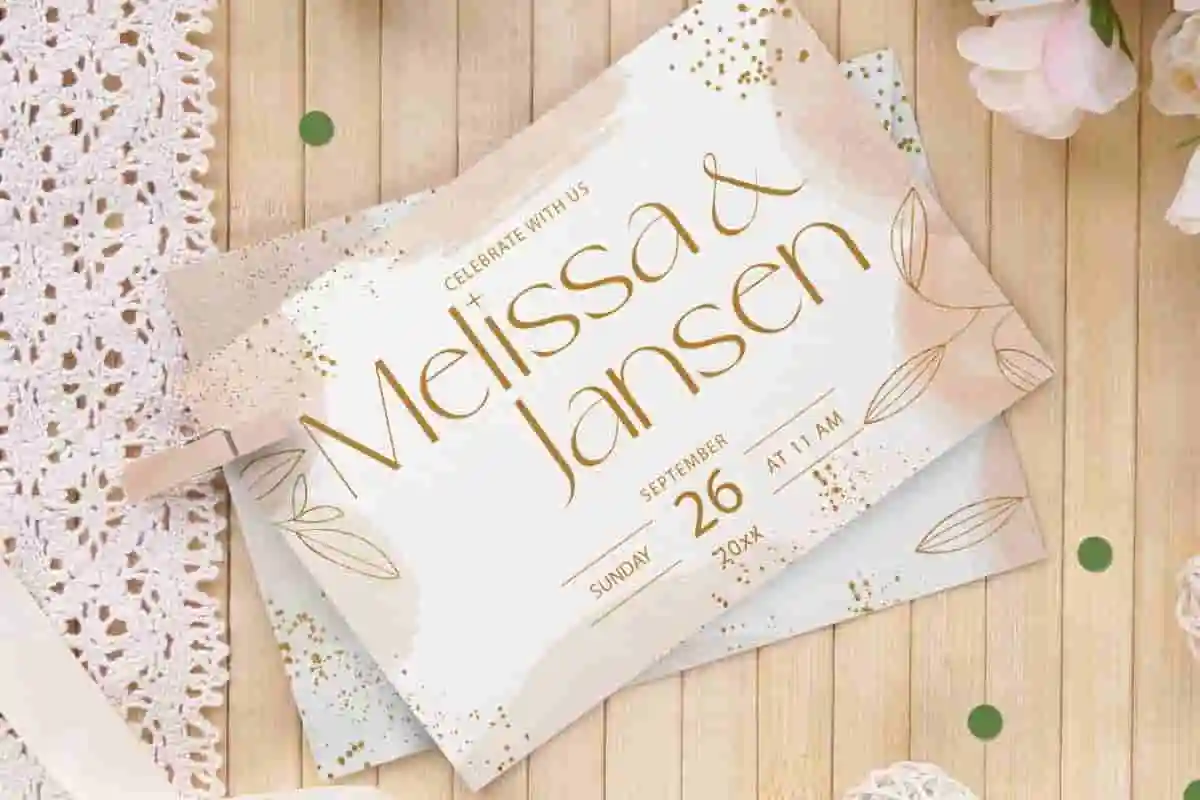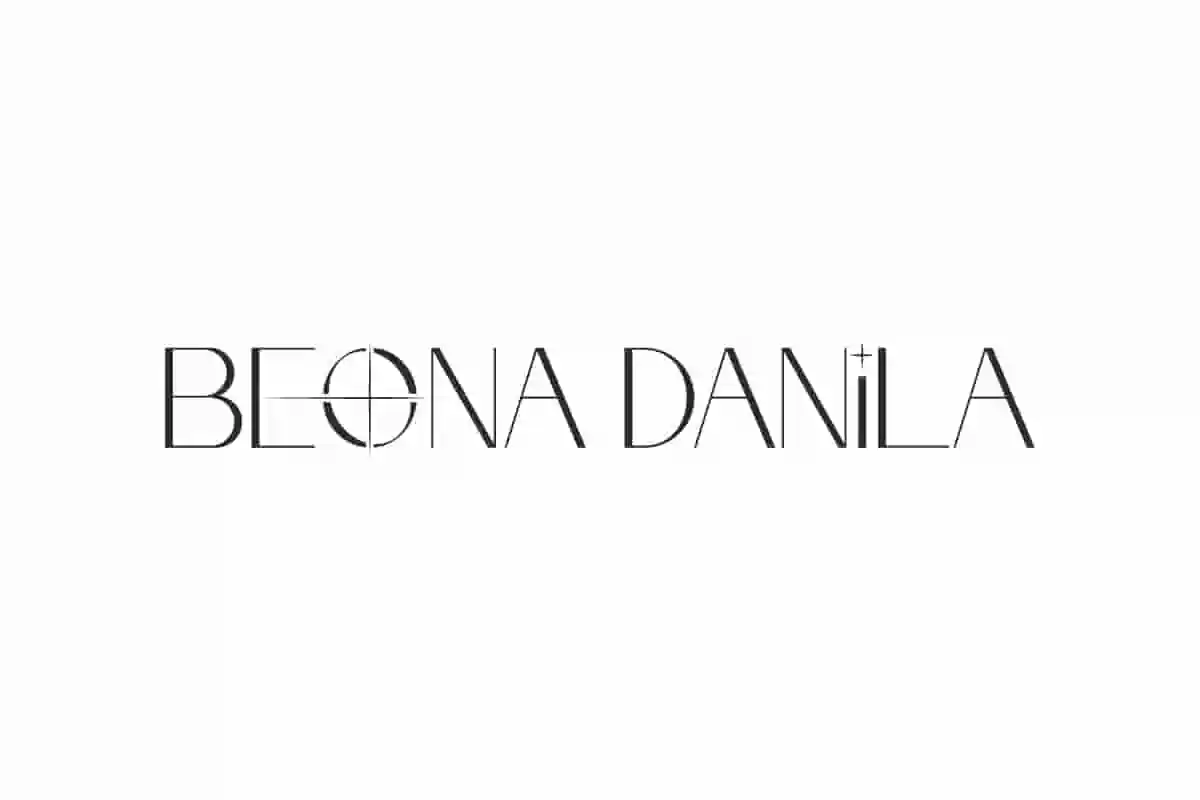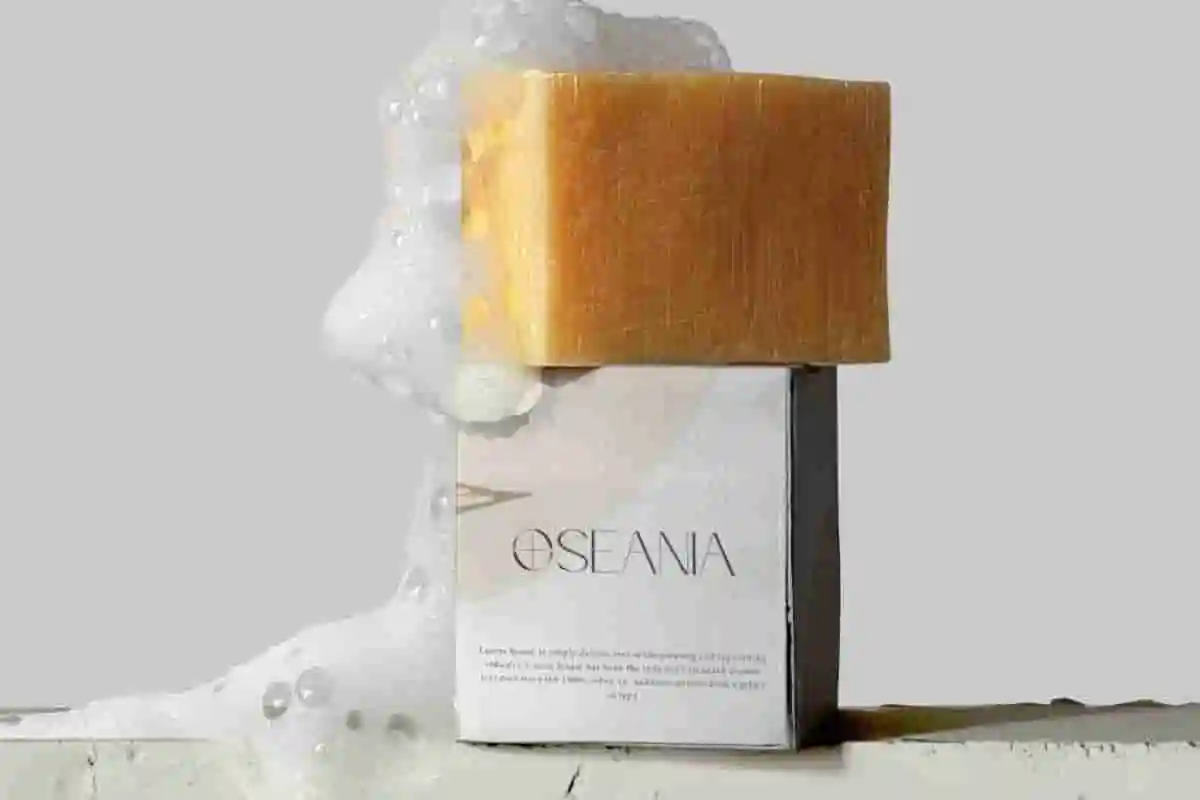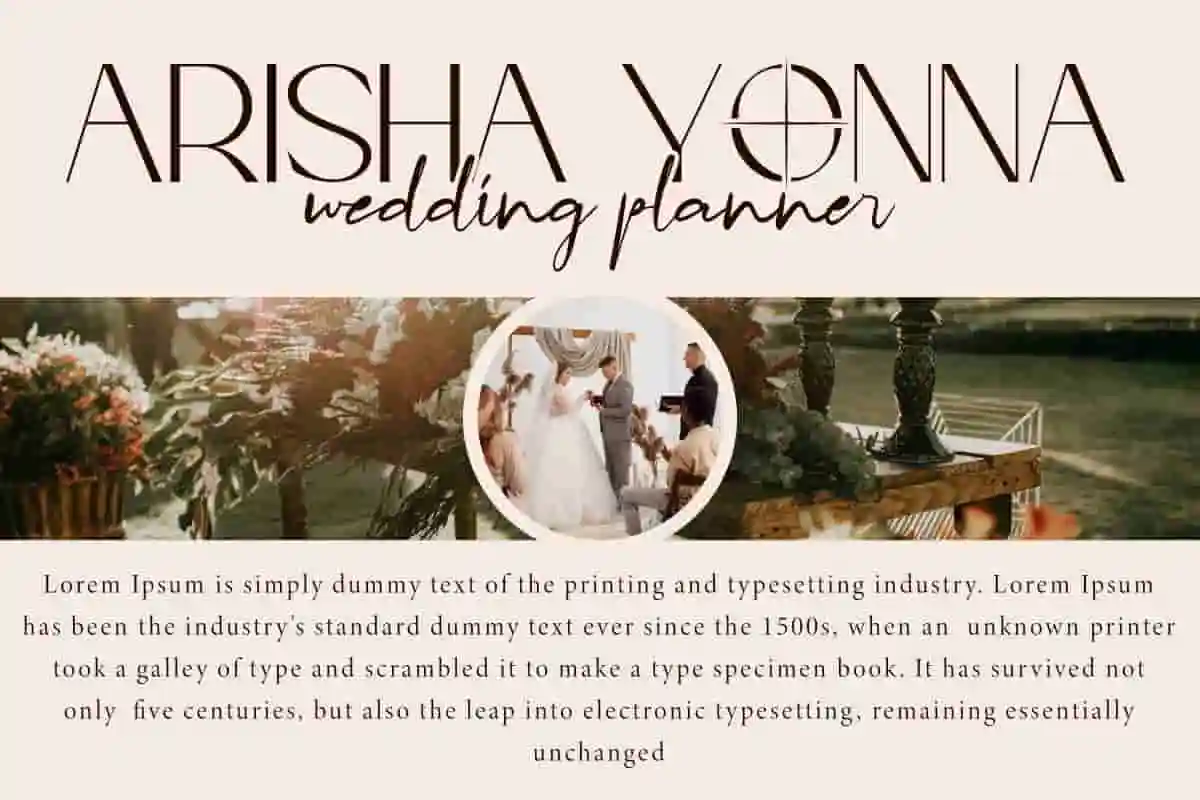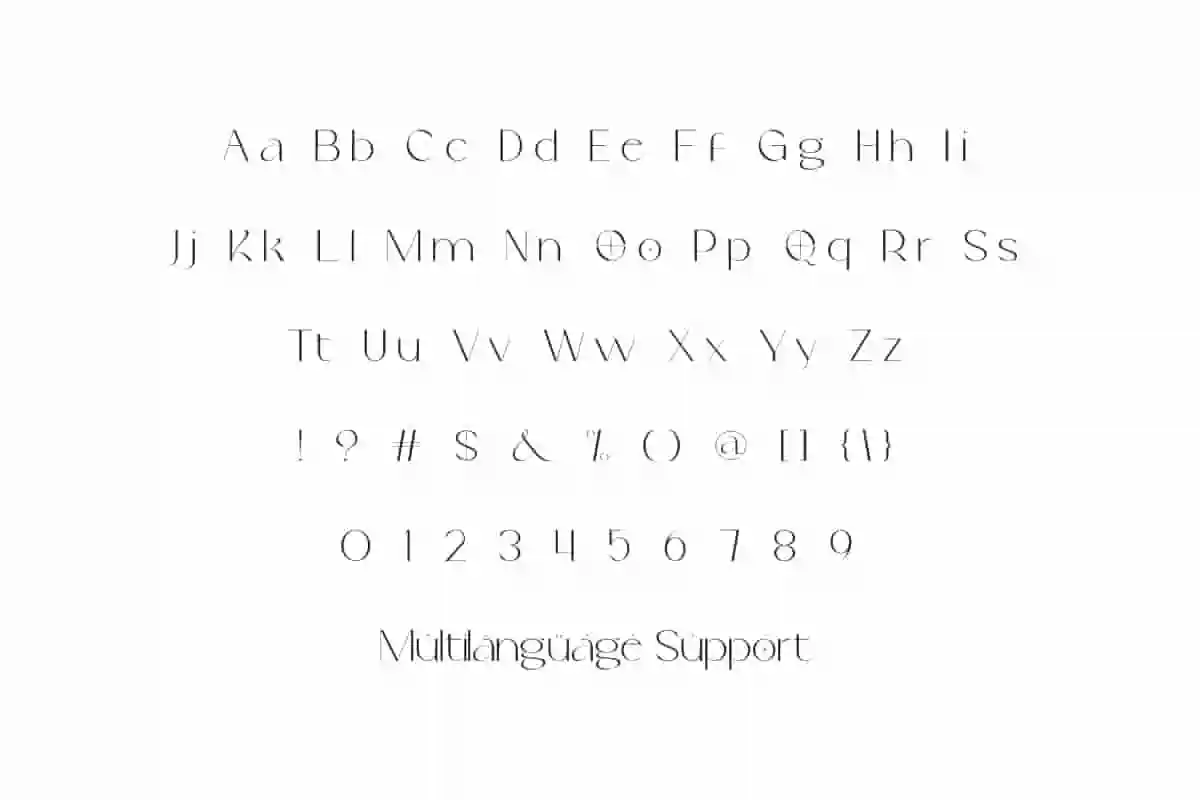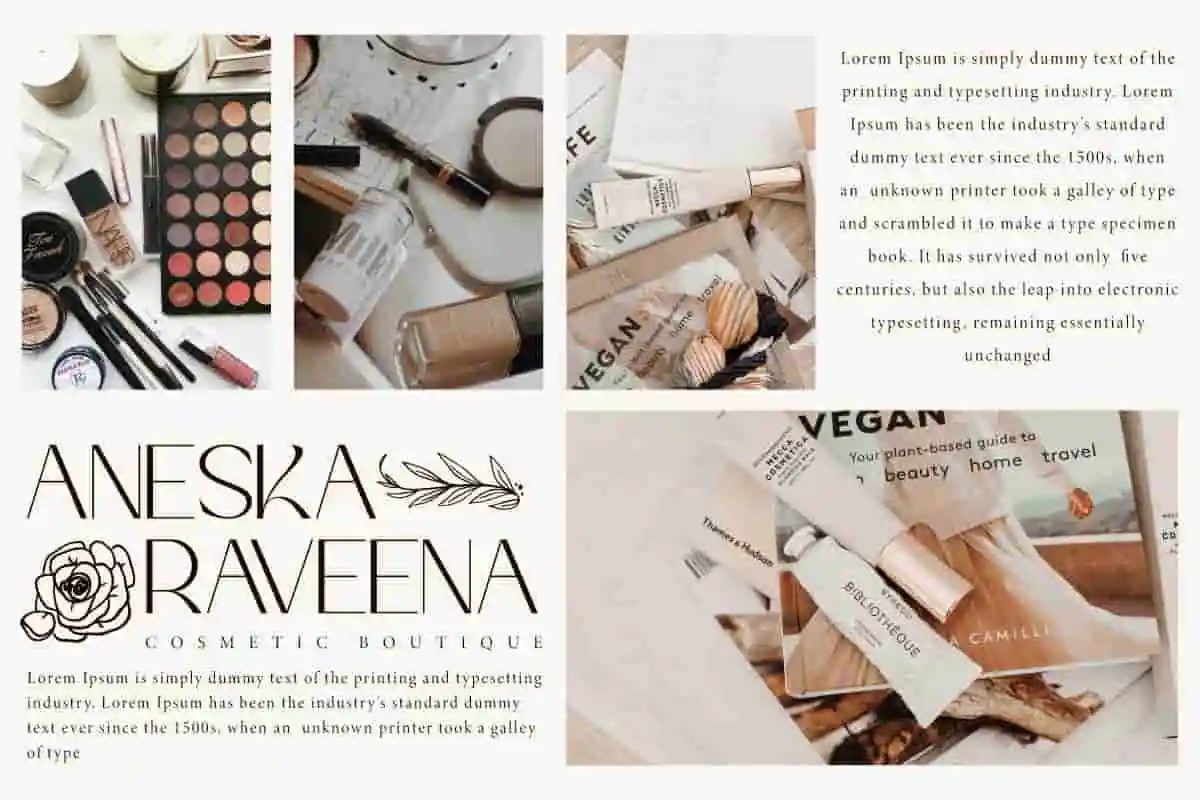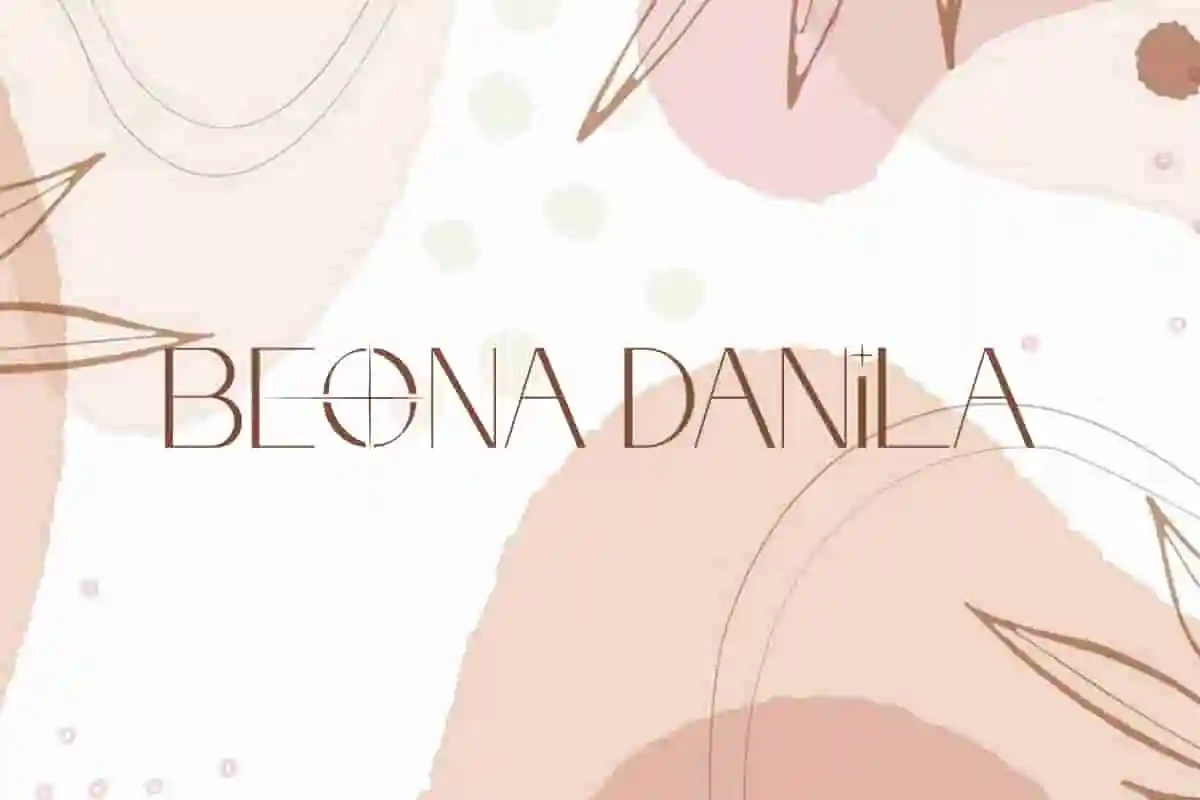
Beona Danila Font is an elegant sans serif display font that brings luxurious feel and appearance with its unique style. Suitable for your luxury projects.
Beona Danila Font is an elegant sans serif display font that has a unique style in some of its letters. It has star and light decorations that make it look beautiful. It is a versatile font that is perfect for any project, such as blogs, cover, headers, headline, invitation, jewelry, labels, logos, mockup, product packaging, quotes, screen print, stickers, title, website and many more.
Beona Danila Font includes full set of Uppercase and Lowercase Basic Characters, Numbers, Punctuation, and Symbols. This font brings a luxurious feel to any design or project created using this font, the feel and appearance that looks expensive. It is perfect for your luxury projects, and of course can be used in advertising, boutique, cosmetic, event organizer, graphic designer, perfume store, skincare, wedding, etc.